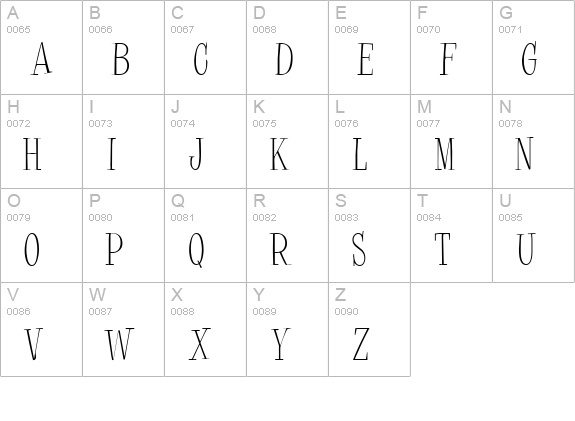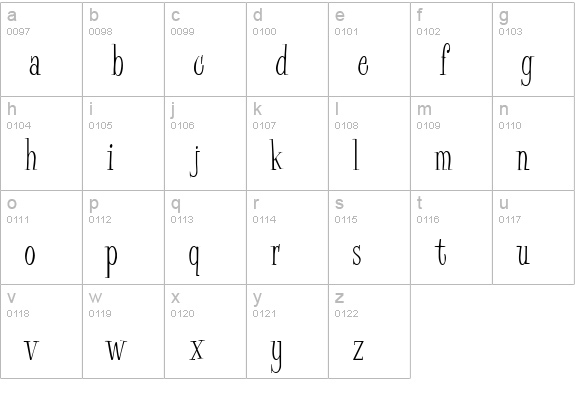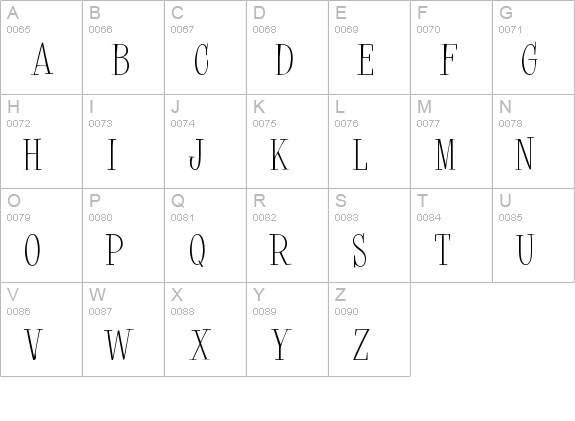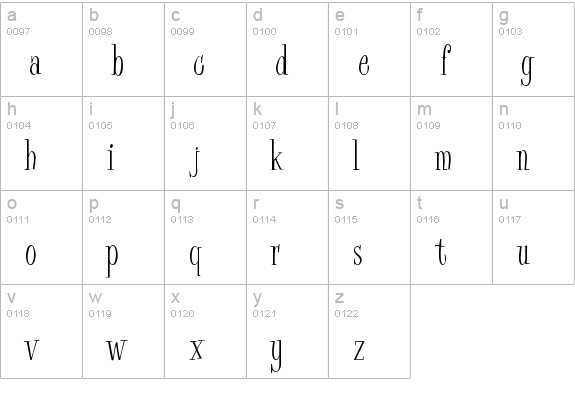
Pine Casual Font Details
Introducing Pine Casual, a whimsical and charming font that effortlessly captures the essence of casual elegance. With its delicate strokes and playful curves, this font exudes a sense of carefree sophistication, making it perfect for a wide range of creative projects. Pine Casual is a free font that adds a touch of personality to any design. Whether you're crafting a logo, designing a greeting card, or creating a website, this font is sure to make a lasting impression. Its versatility allows it to be used in both formal and informal settings, making it a go-to choice for designers and creatives alike. With Pine Casual, you can let your creativity run wild. From its distinctive letterforms to its unique ligatures, this font offers endless possibilities for customization. Whether you want to create a vintage-inspired design or add a modern twist to your project, Pine Casual has got you covered. Best of all, Pine Casual is freely available to download at FontsMarket.com. This means that you can easily access and use this font in your designs without any cost. So why wait? Download Pine Casual today and let your imagination soar.